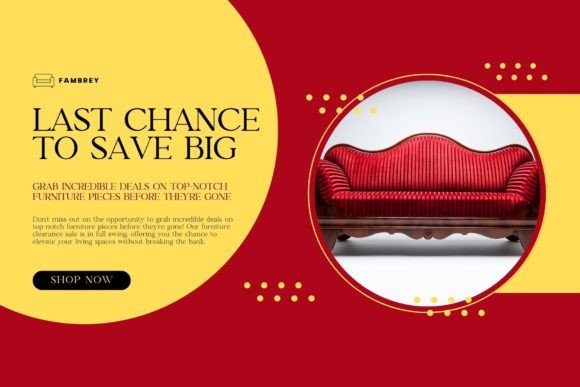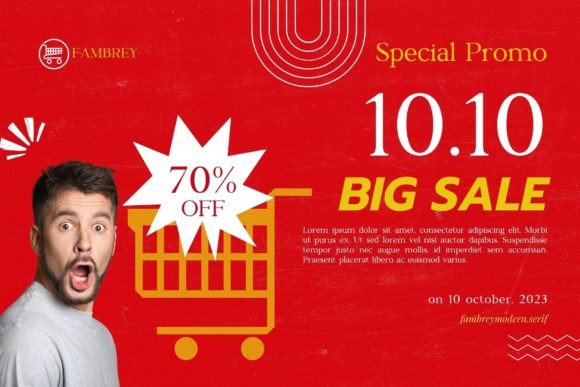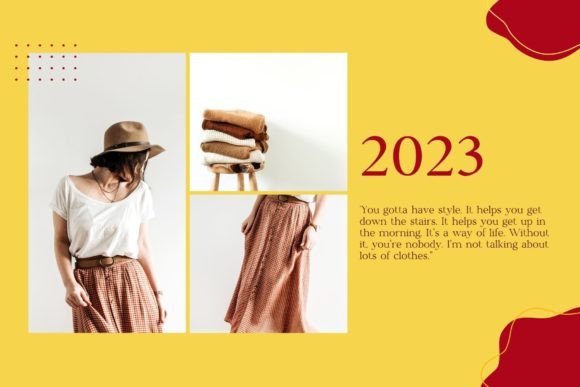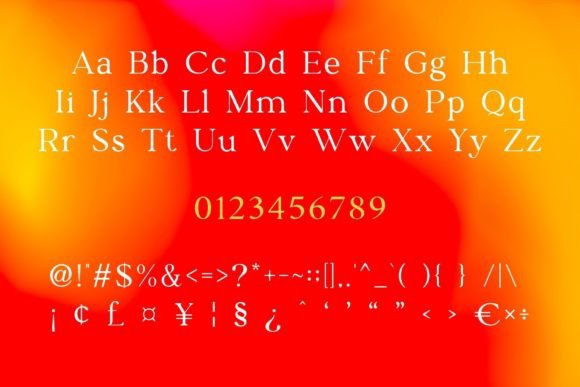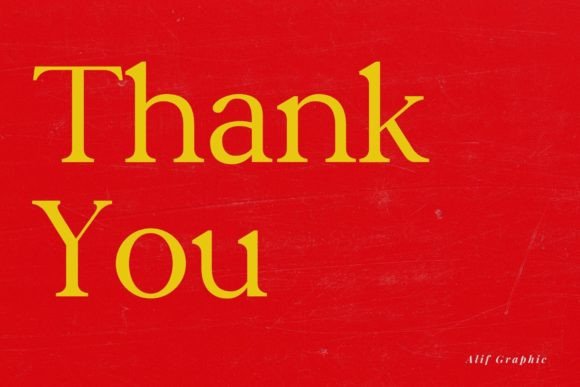
Introducing Fambrey Font: Elevate Your Creative Projects with Elegance
Have you ever been in the middle of a design project, and suddenly, you’re stuck on finding the perfect font? I recall a recent experience where I was working on a branding project for a luxury client, and no matter how hard I searched, I couldn’t find a font that exuded the level of sophistication and modernity I was looking for. That was until I stumbled upon the Fambrey Font series. In this article, I’ll share my journey with Fambrey, its features, and how you can make the most of it in your creative projects.
The Birth of Fambrey: A Story of Precision and Passion
The story of Fambrey begins with a passion for typography and a commitment to precision. The creators of Fambrey, driven by a love for exquisite design, embarked on a mission to craft a font series that would strike the perfect balance between modernity and elegance. With meticulous attention to detail, each letter in the Fambrey series was designed to guarantee a flawless typographic expression.
My Honest Review of Fambrey Font
As a designer, I’m always on the lookout for fonts that can elevate my projects. Here’s my honest review of Fambrey:
- ✨ Elegant and Modern Design: Fambrey’s design is truly exquisite, making it perfect for luxury brands and high-end projects.
- ✅ Versatility: The font series comes with multiple weights and styles, allowing you to use it for a wide range of projects.
- 💡 OpenType Features: Fambrey supports advanced OpenType features, including ligatures, stylistic alternates, and glyphs.
- 🤔 Learning Curve: With so many features and options, it may take some time to get familiar with Fambrey’s capabilities.
Q: What makes Fambrey Font unique?
A: Fambrey’s unique blend of modernity and elegance, combined with its precise design and OpenType features, sets it apart from other fonts.
Q: Is Fambrey suitable for body text?
A: While Fambrey is elegant and modern, it may not be the best choice for long-form body text. Consider using it for headlines, titles, or short paragraphs for maximum impact.